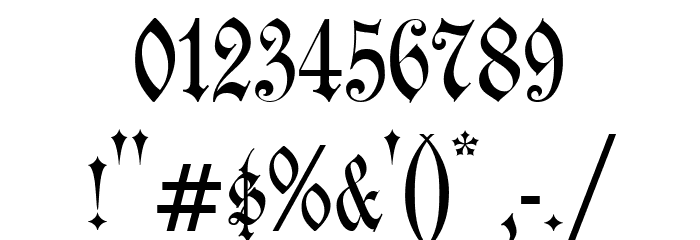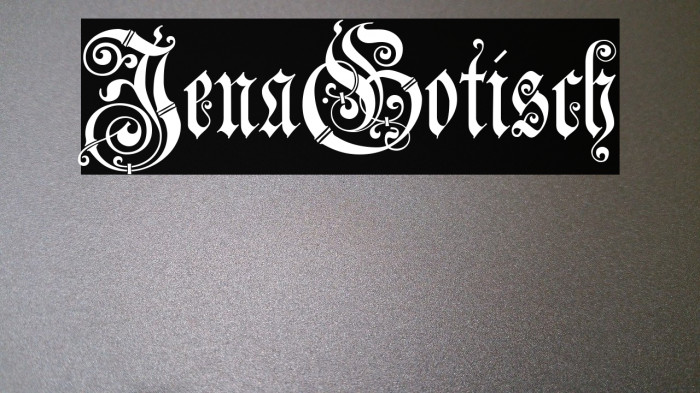
JenaGotisch Font
This font is a highly decorative and intricate typeface with a strong Gothic influence. The uppercase letters are adorned with elaborate flourishes and embellishments, creating a sense of grandeur and historical elegance. The lowercase letters maintain a traditional blackletter style, featuring sharp angles and dramatic strokes. The numerals and special characters are consistent with the overall ornate theme, making them suitable for designs that require a touch of medieval or vintage flair. The font's complexity and detail make it ideal for projects that aim to capture attention and convey a sense of sophistication and tradition.
An ornate Gothic-inspired font with elaborate flourishes and blackletter style.
- Proposed Projects: Ideal for historical-themed designs, wedding invitations, book covers, or branding that requires a vintage or medieval touch.
- Category: Blackletter
- Overall Style: Vintage, Decorative
- Use Case: Logos, Headlines, Decorative text